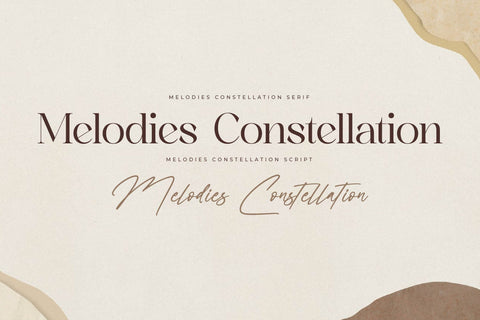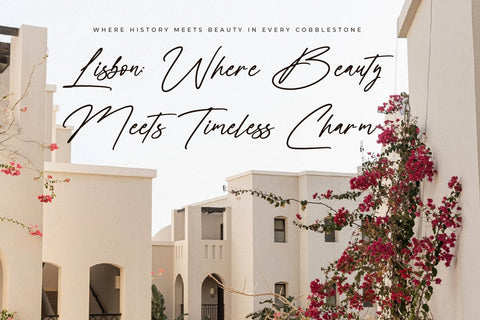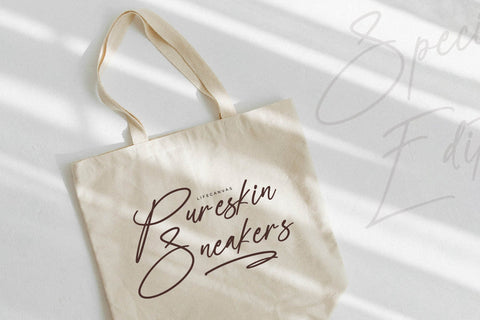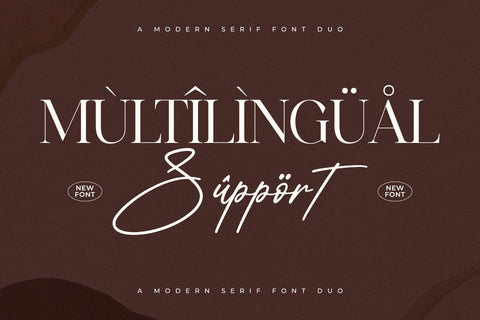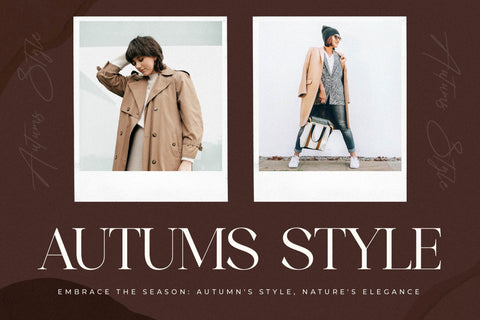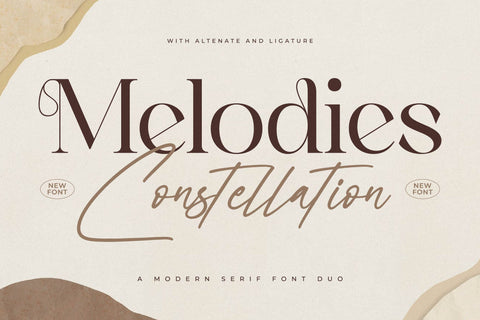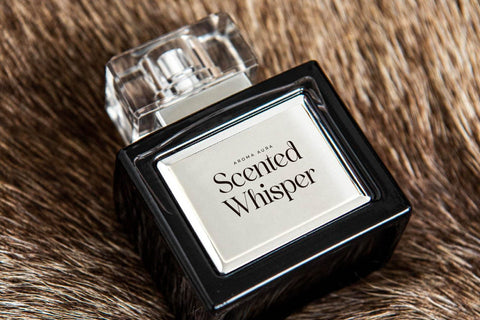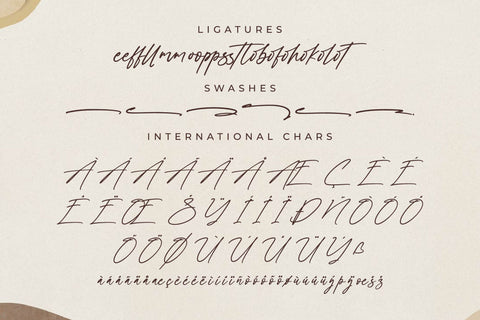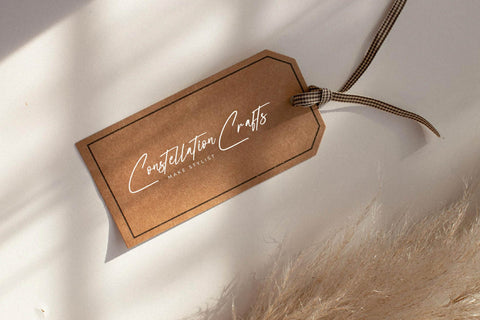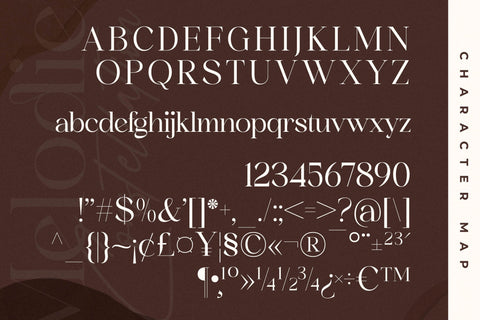
Melodies Constellation Font Duo
Proudly present Melodies Constellation Font Duo , created by Storytype,
A serif and script typeface that has own unique style & modern look.